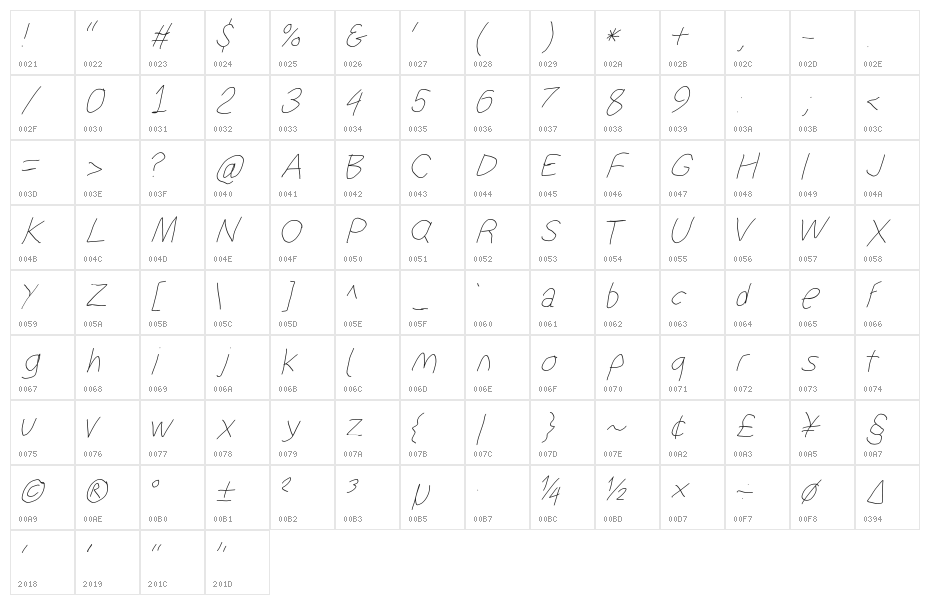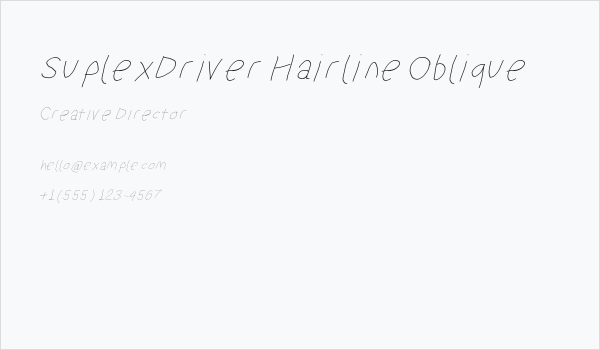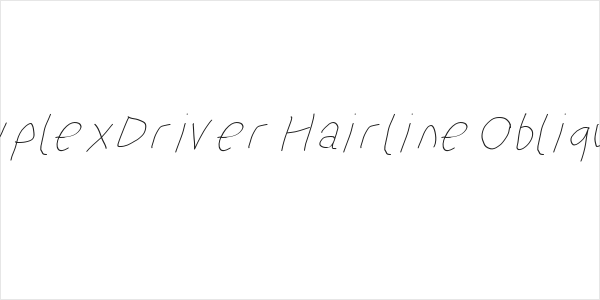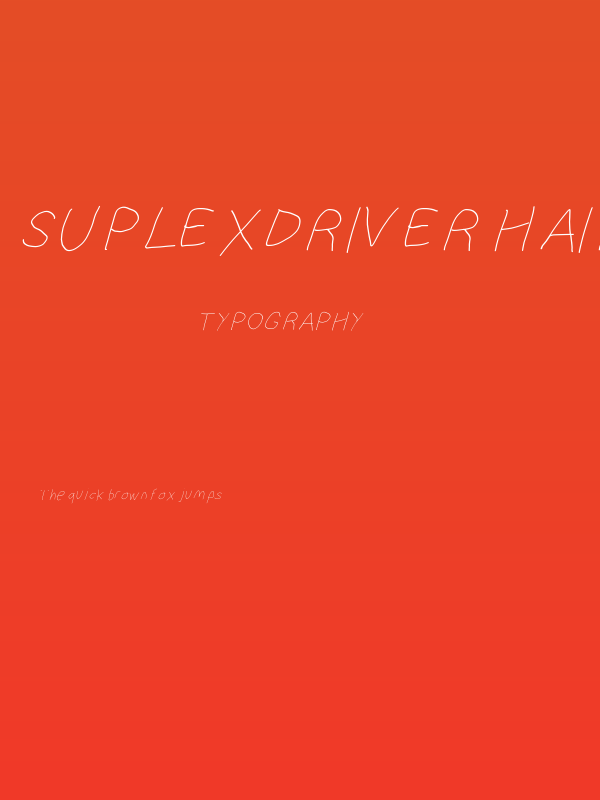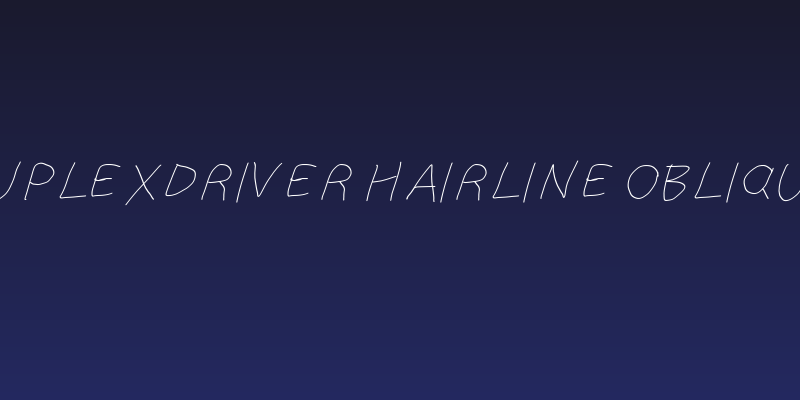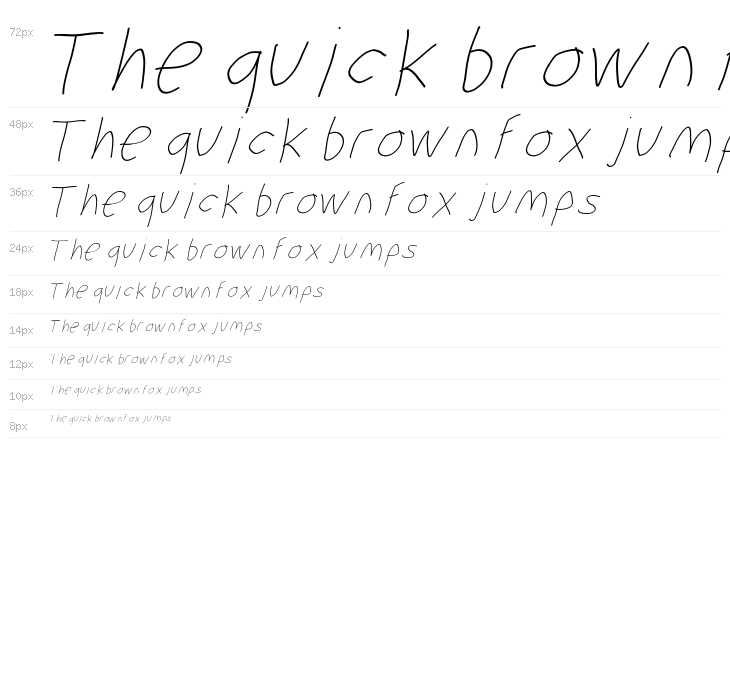
SuplexDriver Hairline Oblique Font
SuplexDriver Hairline Oblique Description
This font features a delicate, hand-drawn style with an oblique orientation, giving it a casual yet sophisticated appearance. The characters are thin and elongated, with a slight slant that adds a sense of movement and fluidity. The uppercase and lowercase letters maintain a consistent stroke width, contributing to a harmonious overall look. The numerals and special characters are designed to match the letters, ensuring a cohesive aesthetic. This font's airy and light feel makes it suitable for projects that require a touch of elegance and informality.
| Proposed Projects | Ideal for personal invitations, greeting cards, artistic projects, and branding that seeks a personal touch. |